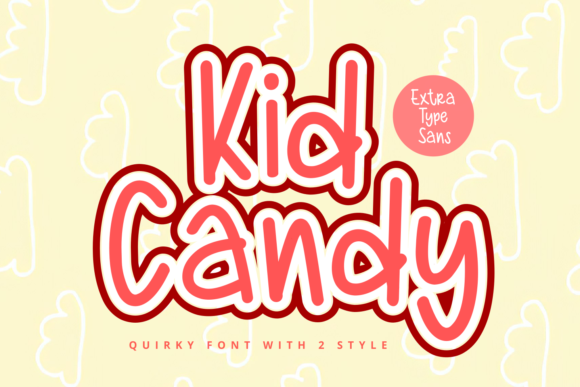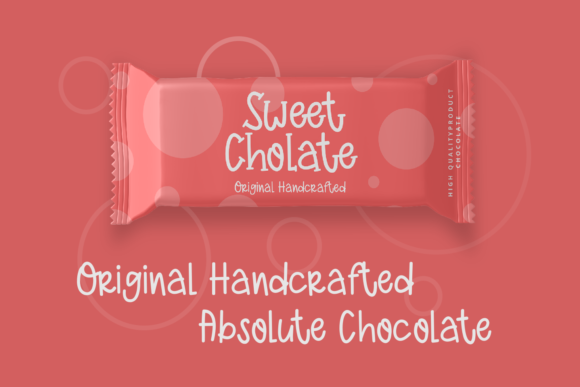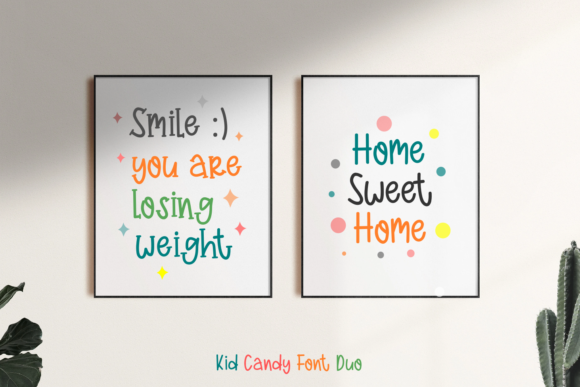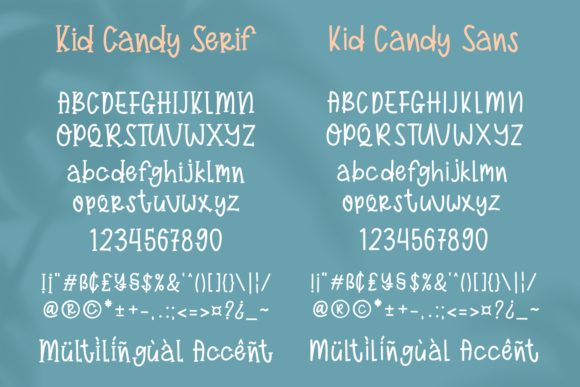
Kid Candy Font
Kid Candy is a sweet and friendly display font. It will meet your design needs with funny and cheerful themes, and it can be used in various design contexts such as clothes, logos, posters, invitations, crafts, and more.